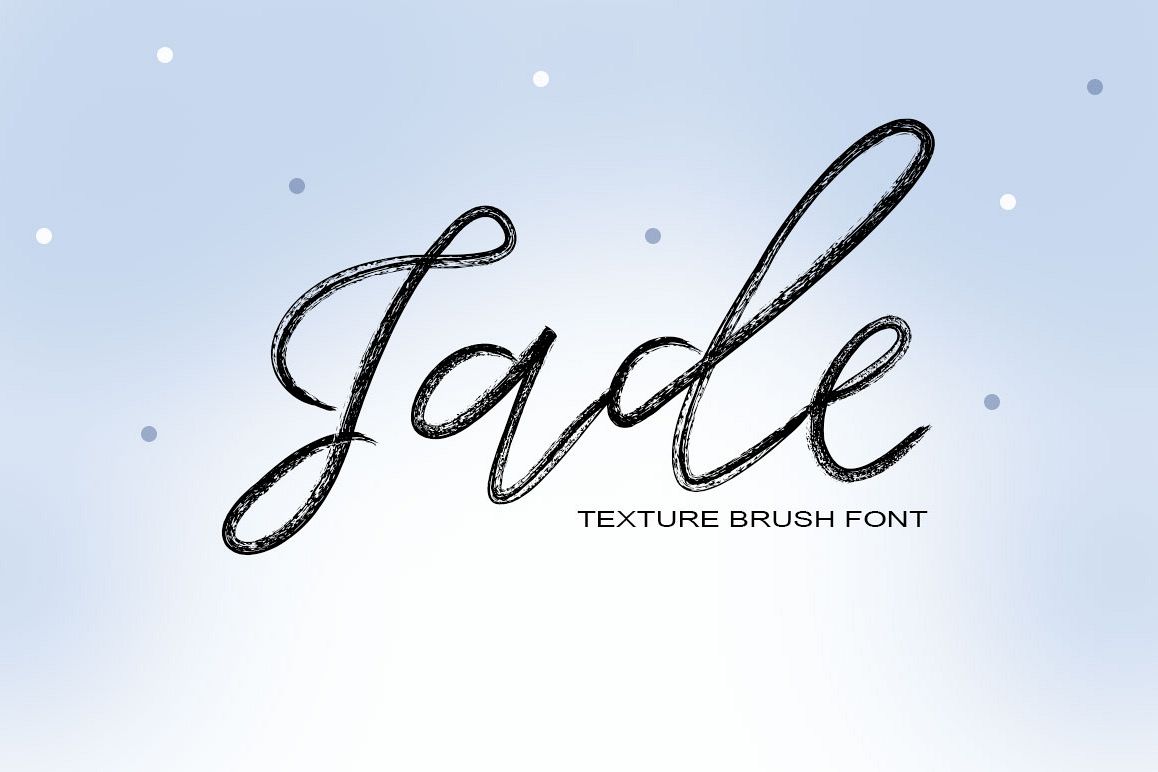
Jade Typeface
Jade
Jade is irregular brush font which
exceptional and fast writes imperfect hand
written look & just the exact amount of roughness. Balancing between scratch
and rush style to
help you create the look of odd custom hand-lettering. Jade is just
what you've been looking for!
Use
Jade on all of your projects to give it an flawed hand brushed font.
In particular would look great on,branding
projects, logos, product packaging, posters, invitations, greeting cards,
titles, blogs, everything that includes personal charm and you name it. ;)
Jade brush script
comes with upper and lowercase characters, punctuation glyphs, numerals, and a